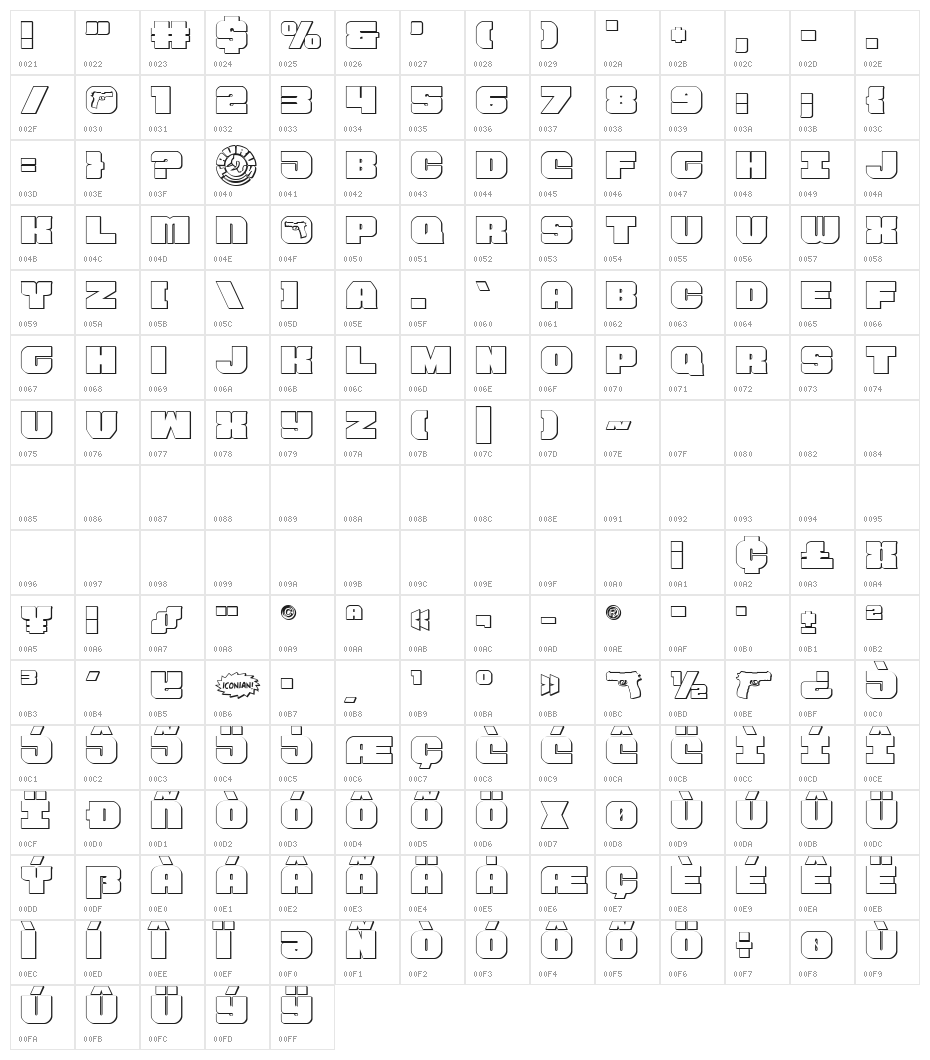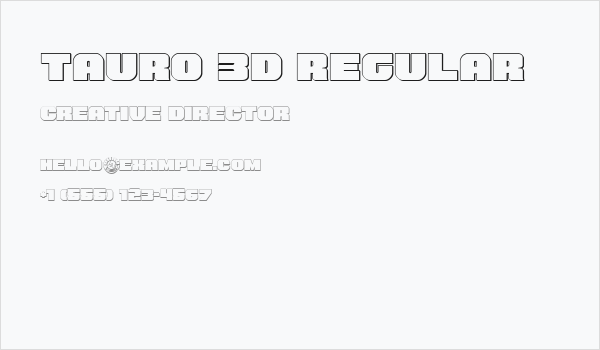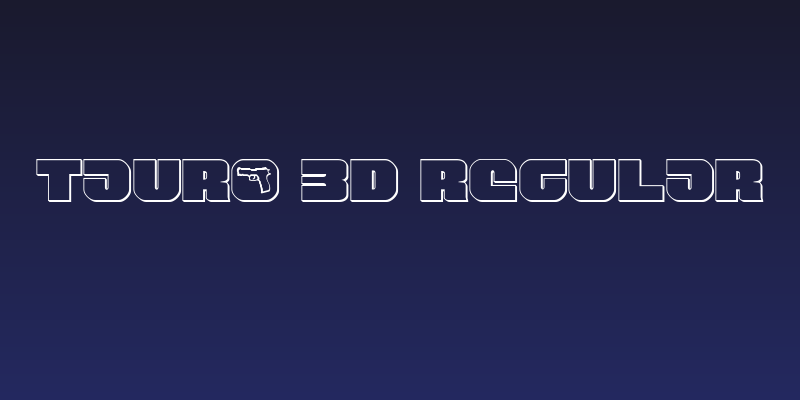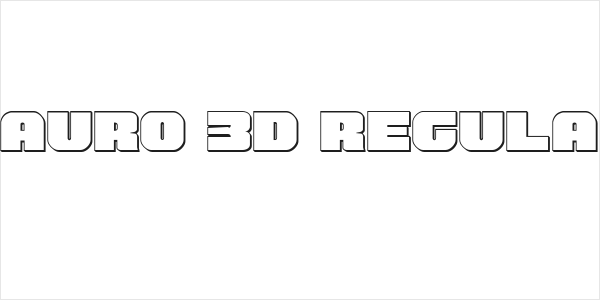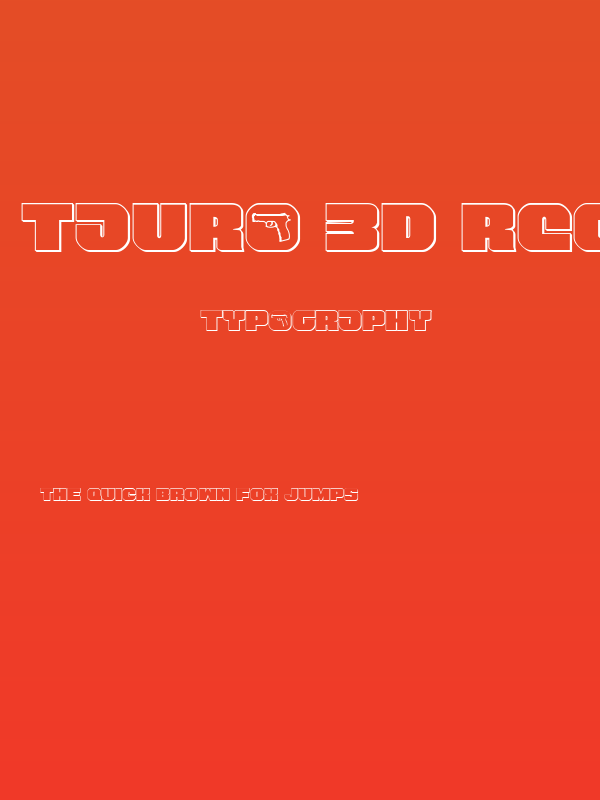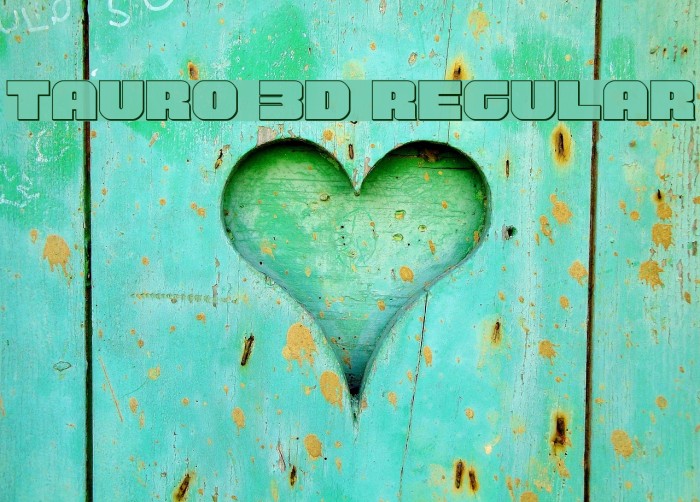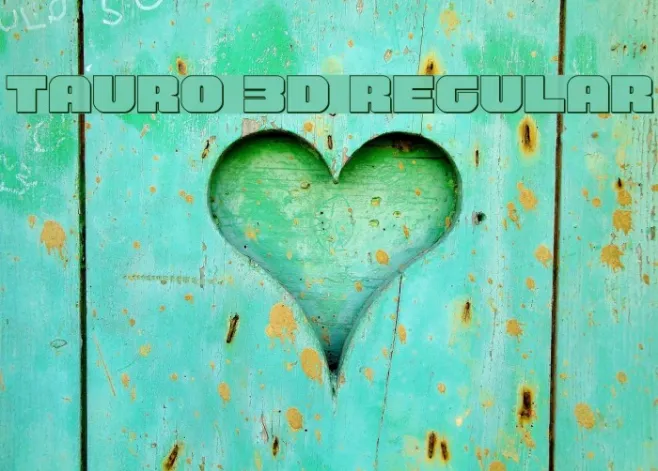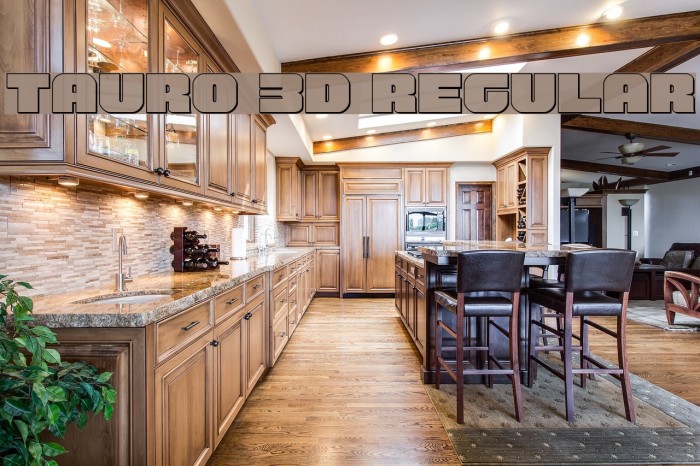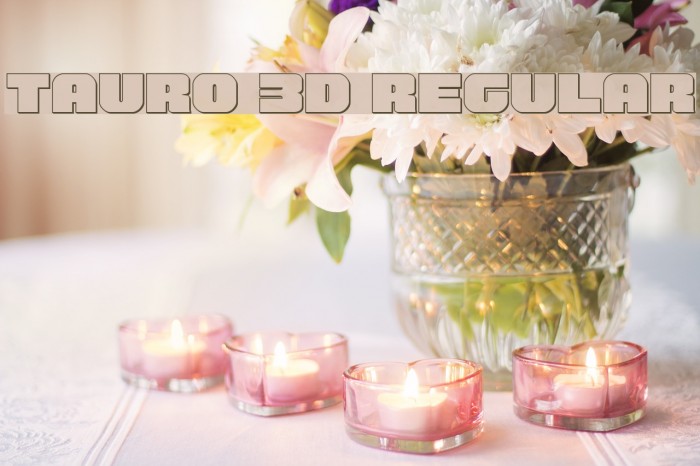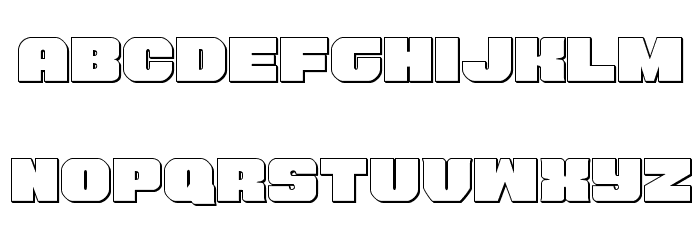
Tauro 3D Regular Font
Tauro 3D Regular Description
This font exhibits a bold, three-dimensional appearance with a strong, geometric structure. The characters are outlined, giving them a hollow look that enhances the 3D effect. The font features sharp angles and straight lines, creating a modern and industrial feel. The uppercase letters are uniform in height, while the numbers and special characters maintain the same bold style. The unique design of the font makes it stand out, with each character having a distinct, blocky form that is both eye-catching and legible.
| Proposed Projects | Ideal for projects requiring a strong visual impact, such as posters, logos, video game titles, and branding materials. |